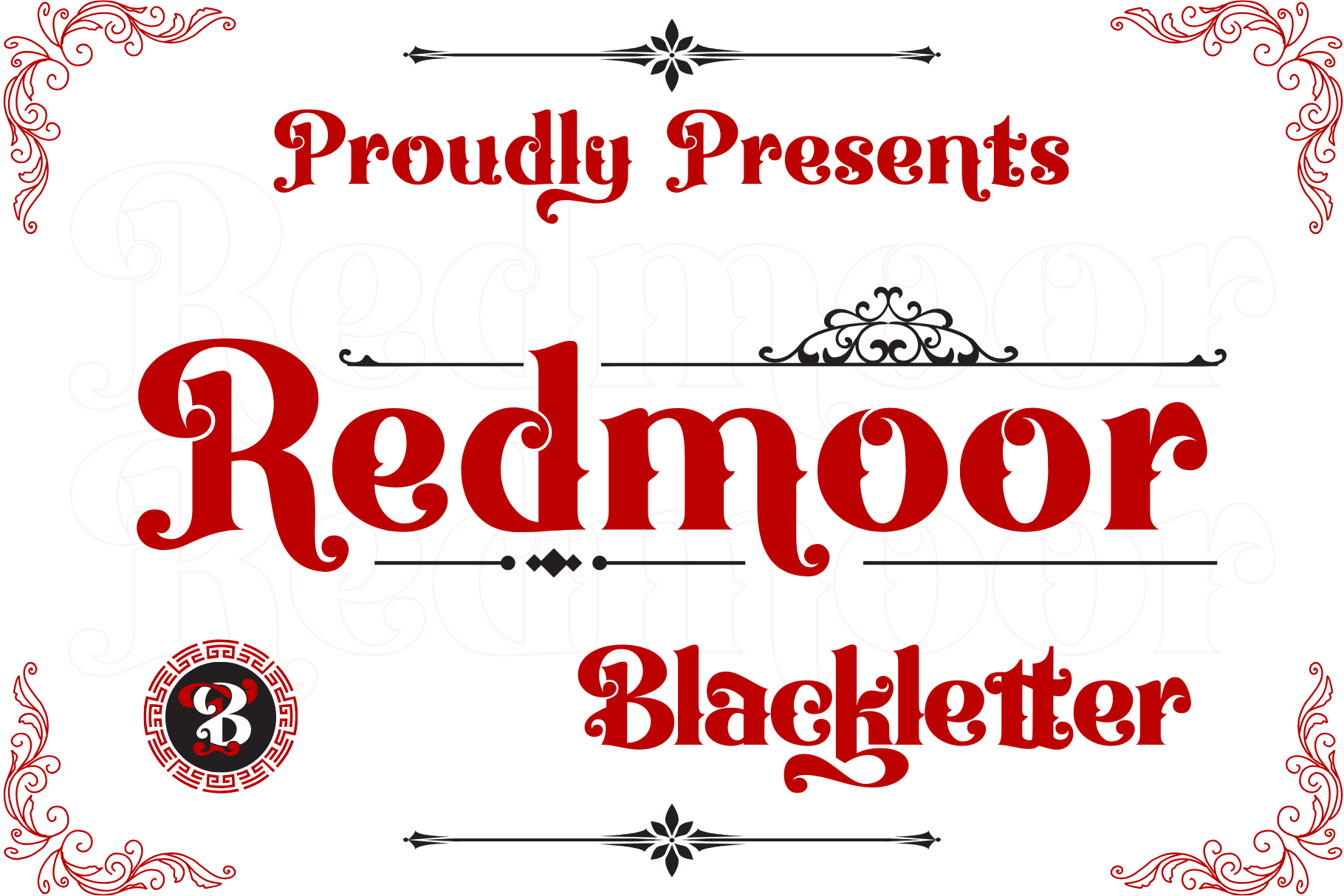
Redmoor - Typeface
Redmoor is a bold display font with a vintage touch, carefully designed to bring a classic feel. It’s perfect for a variety of graphic design projects such as branding, t-shirts, prints, logos, posters, quotes, and more, offering an elegant retro aesthetic.